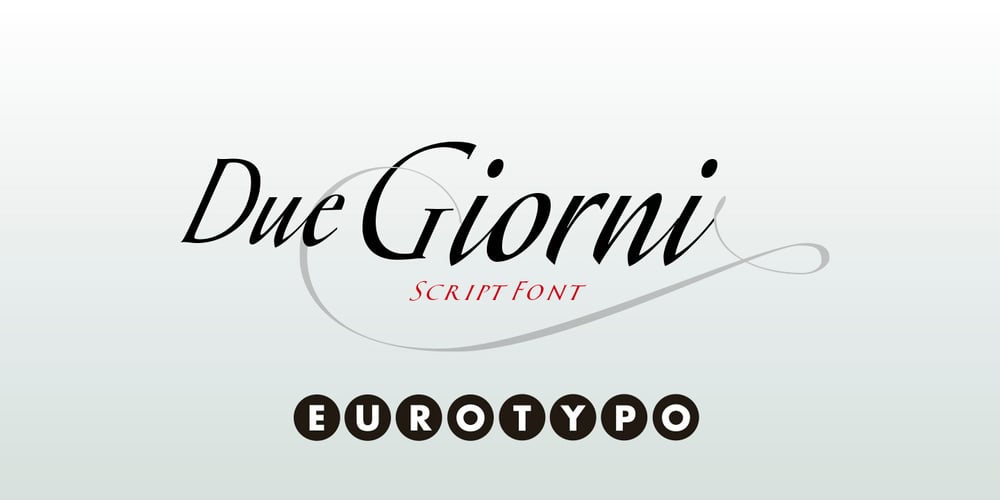
Due Giorni Font Family was designed by Olcar Alcaide and published by Eurotypo. Due Giorni contains 1 styles and family package options. “Due Giorni”, two days in italian language, express a measurement of time, it can be little or a lot, depending on who or what it is used for. “Due Giorni” is a script font very expressive, fresh, agile and dynamic, hand-drawn with connected forms on slanted angle of 23ºThis font contain 542 glyphs with plenty OpenType features: Standard and discretionary ligatures, stylistic alternates, swashes, Old style figures, small caps, case sensitives and ornaments.It come also, with three kind of capitals: Roman Capitals, Small Caps (different proportions) and Swashes. Roman Capitals are inspired on the beautiful inscription found in the Augustorium’s house in Ercolano, Naples.those letters have been carefully drawn and sculpted. Swashed Cursive Capitals are similar to 18th century penmanship. “Due Giorni” is a versatile font that may give you the chance to create original logos and headlines, specially by many stylistic sets, ligatures and alternates that can be combined with them.